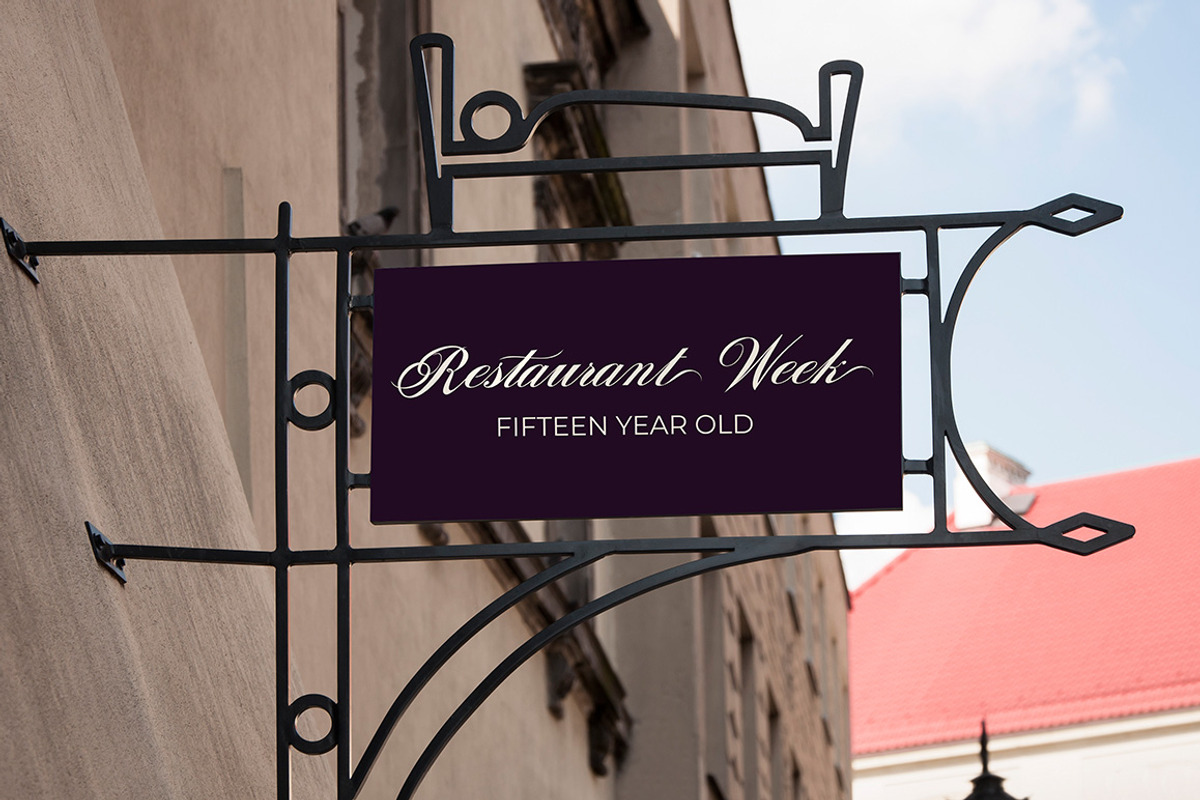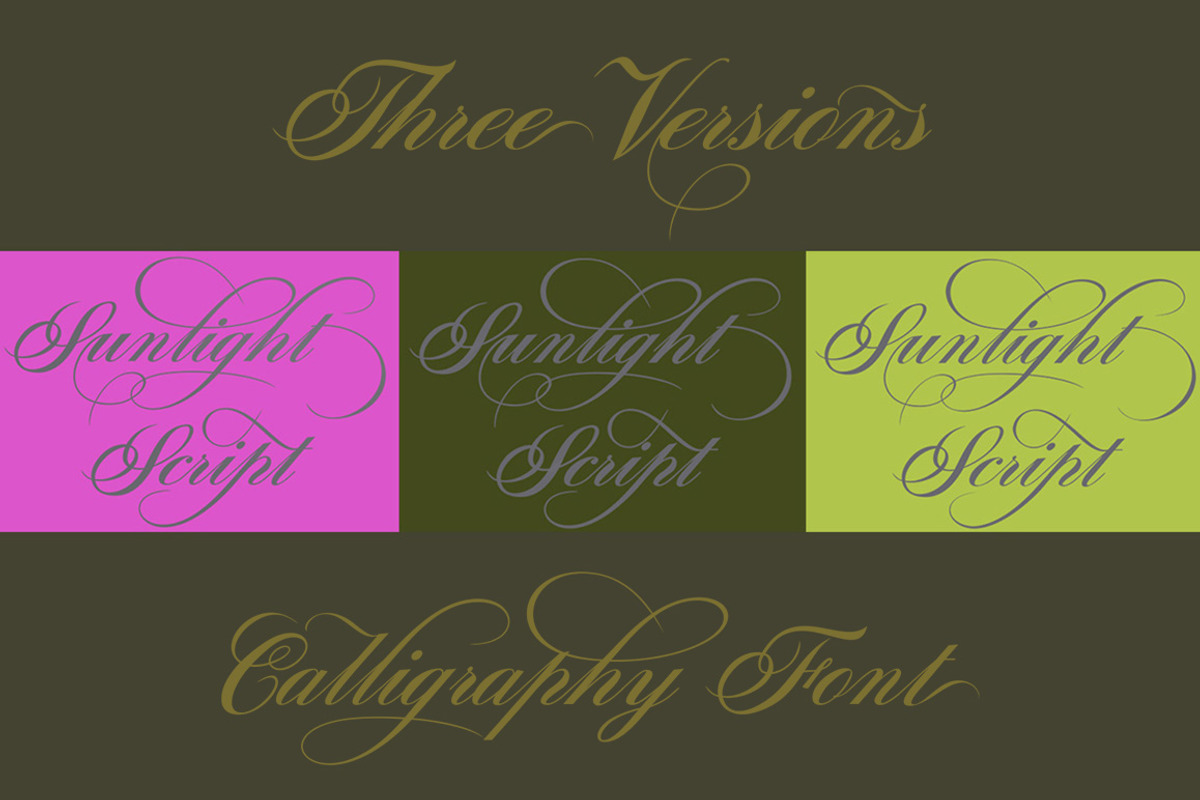
Sunlight Script
Sunlight Script is a calligraphy script font that comes with beautiful alternative characters. a mixture of copper calligraphy with handleting style. Designed to bring style elegance. Sunlight attracts such a subtle, clean, feminine, sensual, glamorous, simple and very readable typeface. The classic style is perfect to apply in various formal forms such as invitations, labels, menus, Logos, fashion, make up, stationery, letterpress, romantic novels, magazines, books, greeting / wedding cards, packaging, labels.
Sunlight Script has 422 glyphs. including multiple language support. With OpenType features with stylish alternatives, ligatures and characters, allowing you to mix and match pairs of letters to fit your design, as well as a touch of ornament to make this font look elegant.